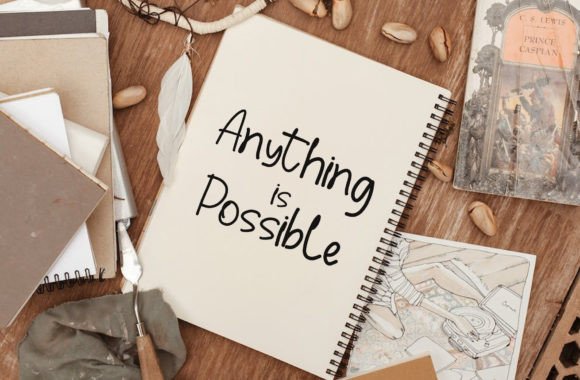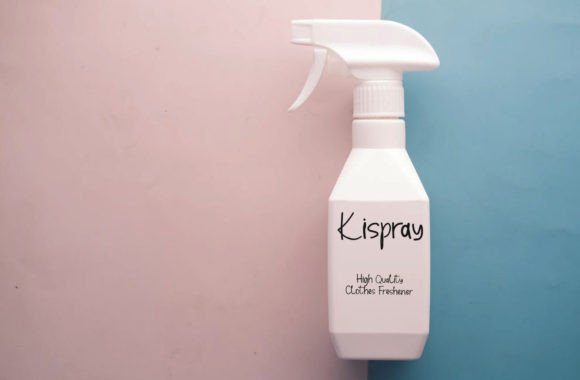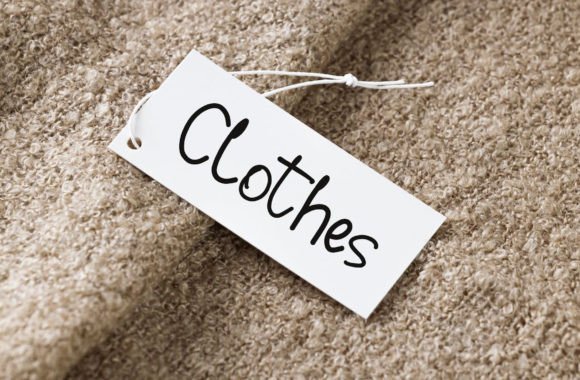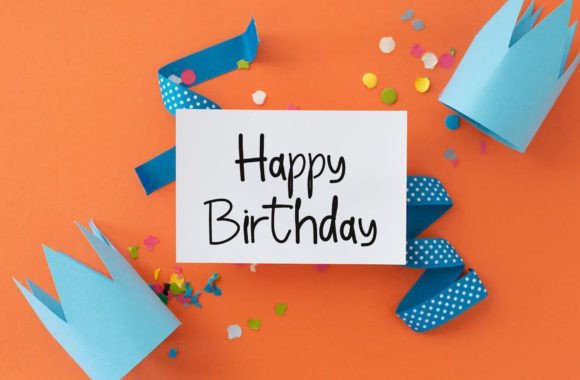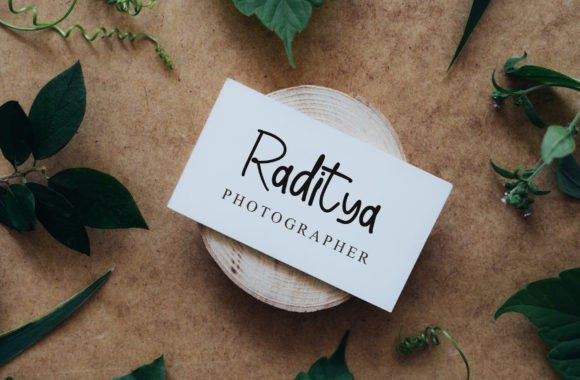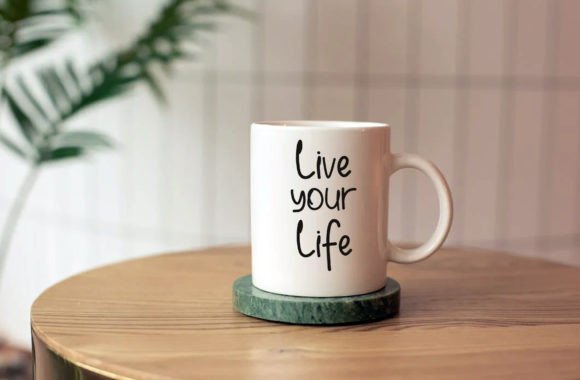
Introducing Coret Kertas: The Organic Handwritten Font for Your Design Needs
In the world of design, typography plays a crucial role in conveying messages, expressing emotions, and creating visual identities. For designers and crafters, finding the perfect font can be a daunting task, especially when it comes to creating engaging and unique content. That’s where Coret Kertas comes in – an organic handwritten font designed to elevate your design projects to the next level.
What is Coret Kertas?
Coret Kertas is a carefully crafted, organic handwritten font that exudes warmth, friendliness, and approachability. The name “Coret Kertas” translates to “paper scratches” in Indonesian, which reflects the font’s handmade and imperfect feel. This distinctive characteristic makes Coret Kertas perfect for designs that require a personal touch, such as social media posts, quotes, overlays on images, tagline logos, posters, print materials, website banners, and more.
Key Features of Coret Kertas
- Organic and Handwritten: Coret Kertas boasts an authentic, handwritten look that adds a touch of humanity to your designs.
- Versatile: This font is suitable for a wide range of design projects, from digital content to print materials.
- Easy to Read: Despite its organic nature, Coret Kertas remains highly legible, making it perfect for conveying messages and quotes.
- Unique Character: The font’s imperfections and irregularities give it a distinctive personality that sets it apart from more traditional fonts.
Use Cases for Coret Kertas
Coret Kertas is an incredibly versatile font that can be used in various design projects, including:
- Social Media Posts: Add a personal touch to your social media content with Coret Kertas, making your posts stand out in crowded feeds.
- Quotes and Overlays: Use Coret Kertas to create inspiring quotes, overlays, and graphics that resonate with your audience.
- Tagline Logos: Incorporate Coret Kertas into your logo designs to convey a sense of approachability and friendliness.
- Posters and Print Materials: Coret Kertas is perfect for creating eye-catching posters, flyers, brochures, and other print materials.
- Website Banners: Elevate your website’s visual appeal with Coret Kertas, used in banners, headers, and other design elements.
Tips for Using Coret Kertas Effectively
To get the most out of Coret Kertas, consider the following tips:
- Pair with Other Fonts: Combine Coret Kertas with other fonts to create visual interest and add depth to your designs.
- Experiment with Colors: Coret Kertas looks great in various colors, so don’t be afraid to experiment and find the perfect hue for your design.
- Keep it Simple: While Coret Kertas is a statement font, it’s essential to balance it with simple design elements to avoid visual overload.
Coret Kertas is an exceptional organic handwritten font that can elevate your design projects and add a touch of personality to your content. Its versatility, legibility, and unique character make it an excellent choice for designers and crafters looking to create engaging and memorable designs. Whether you’re working on social media posts, quotes, logos, posters, or website banners, Coret Kertas is sure to become your go-to font.